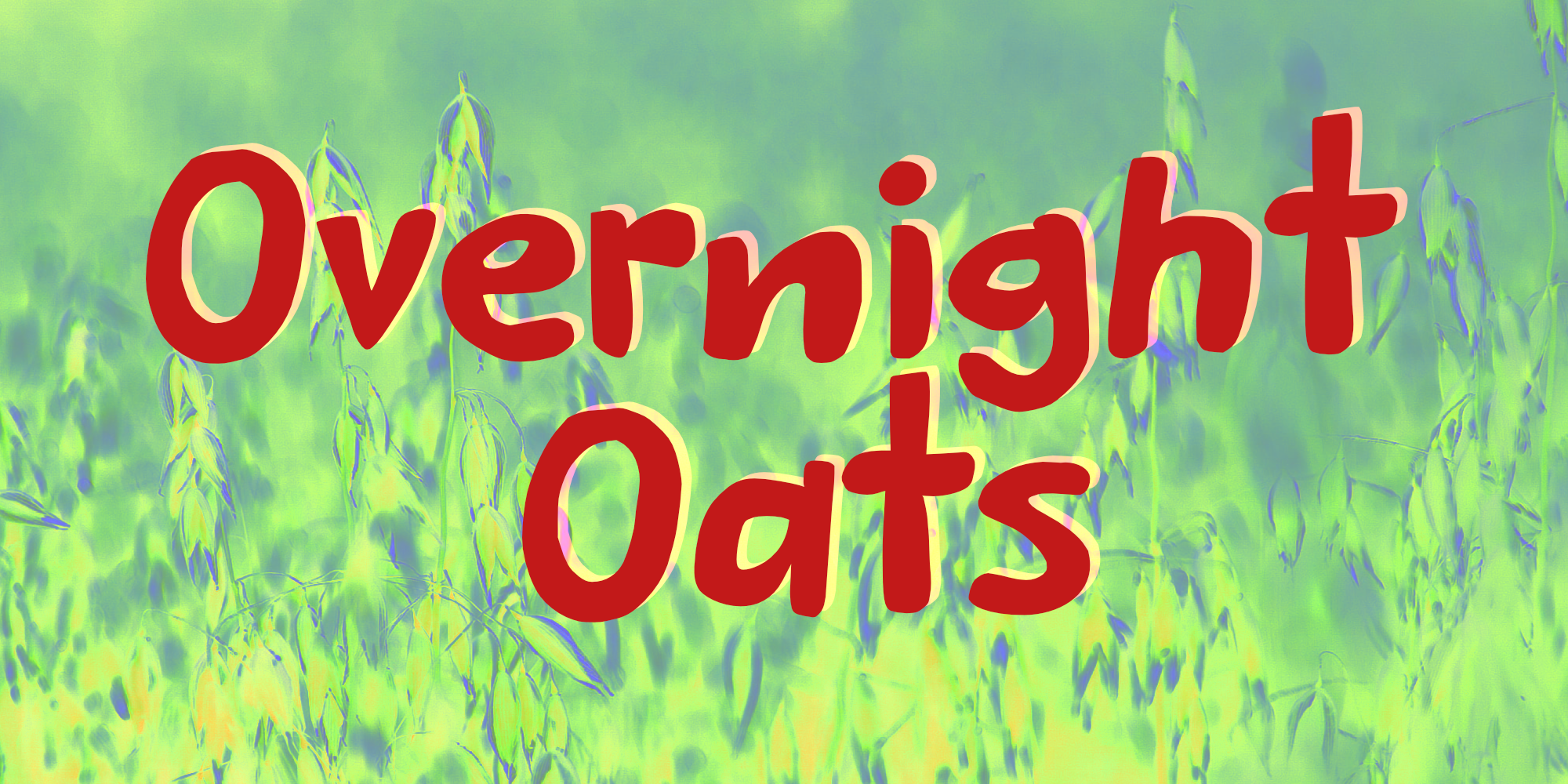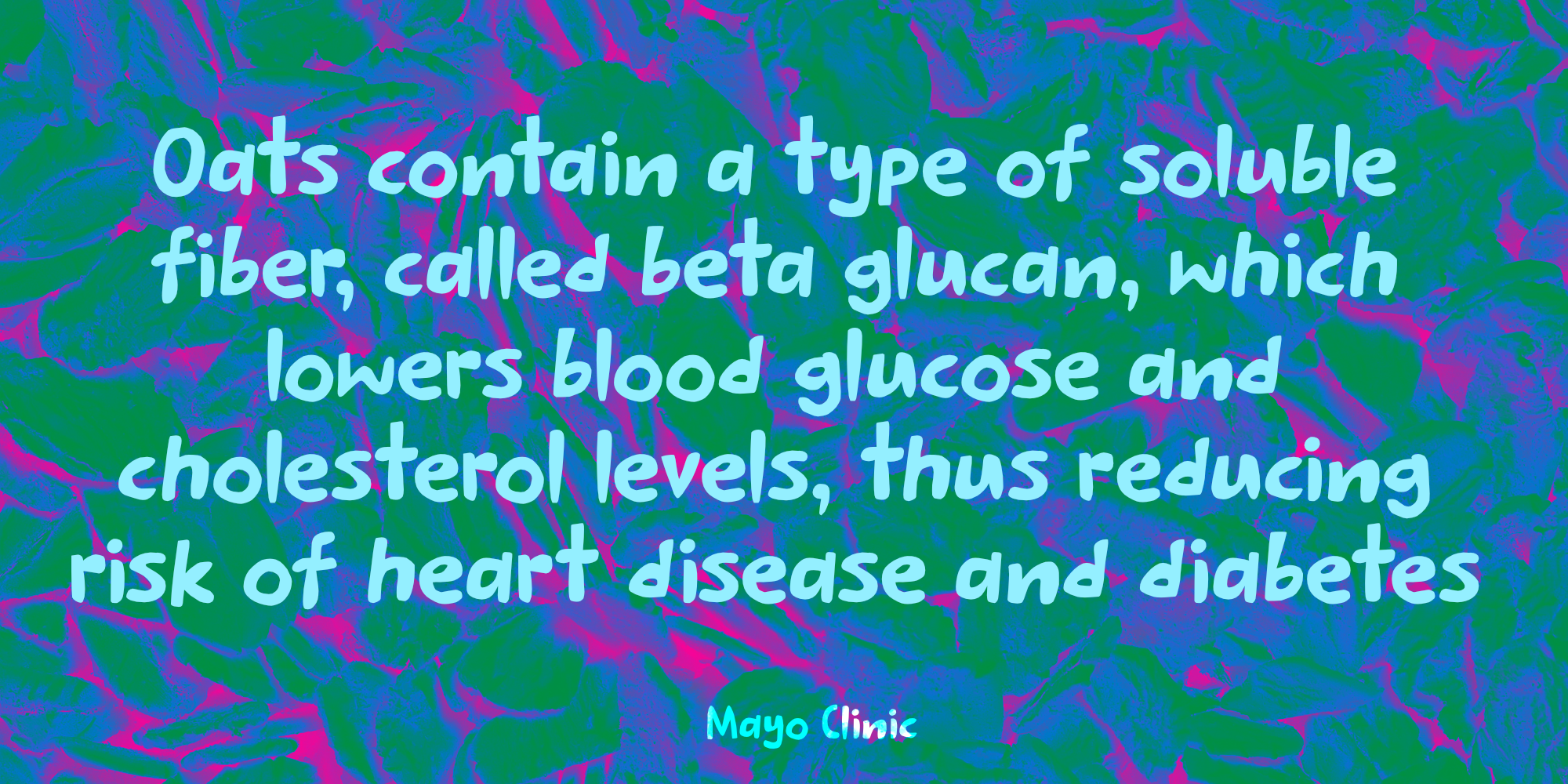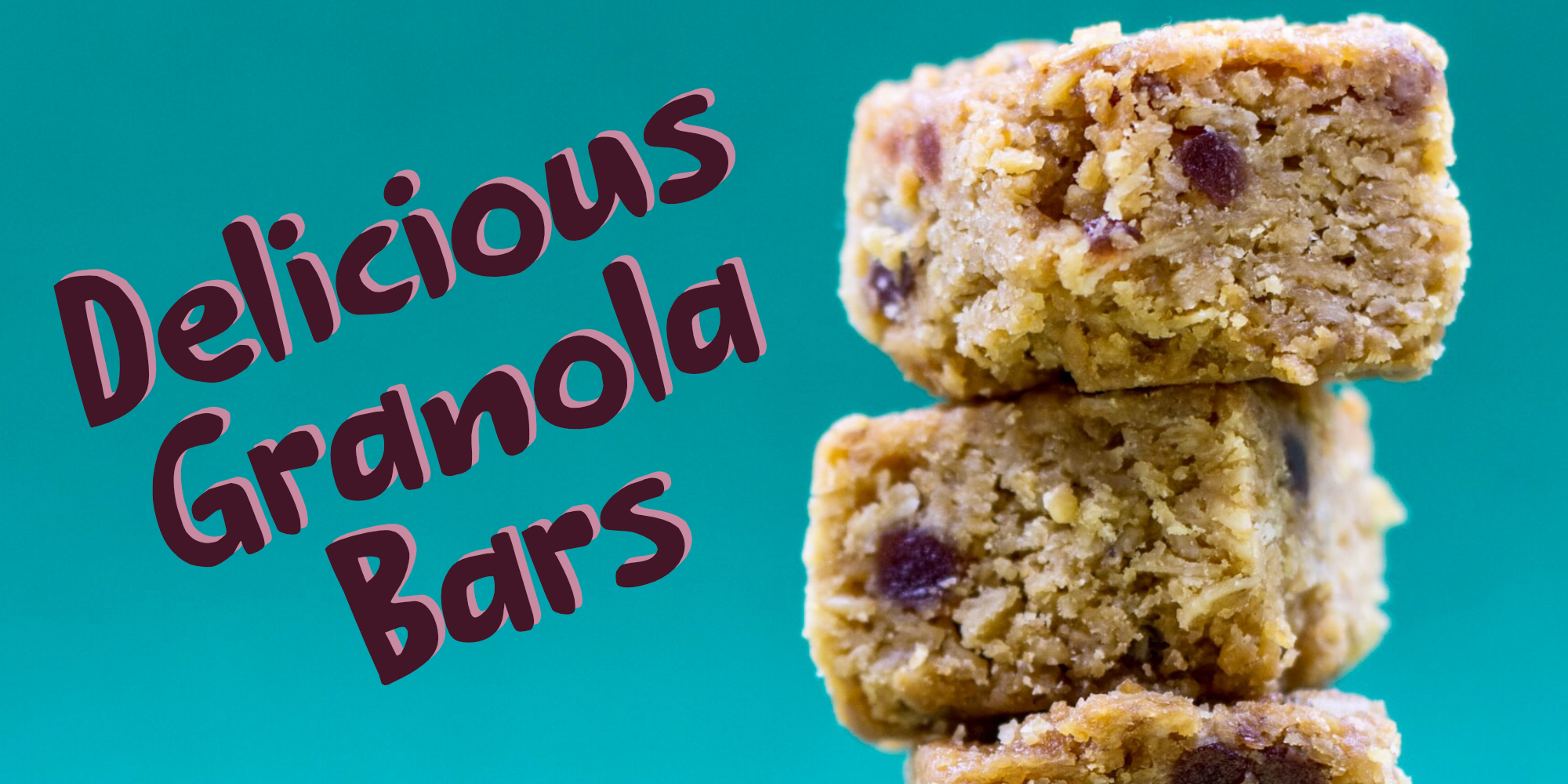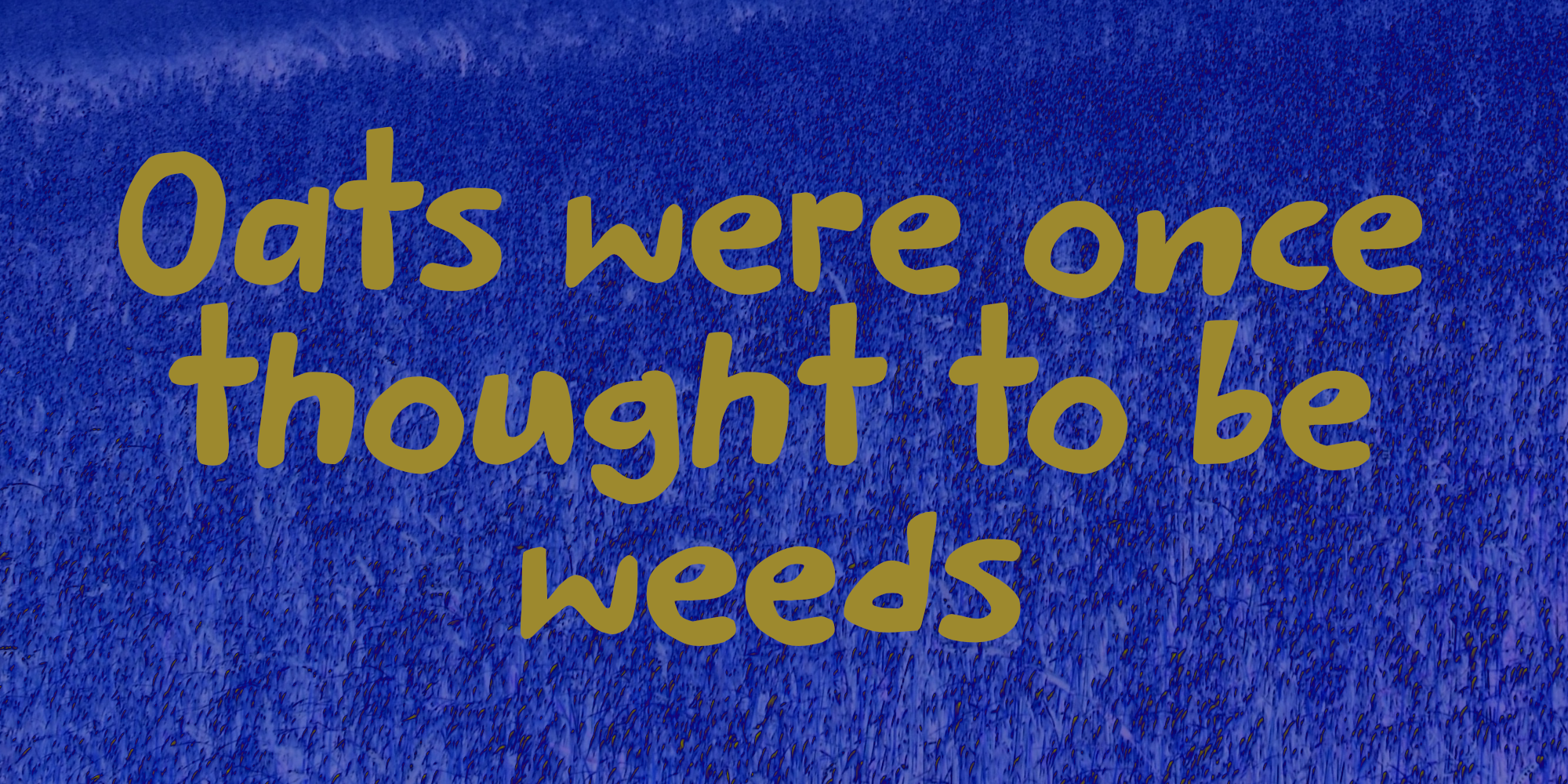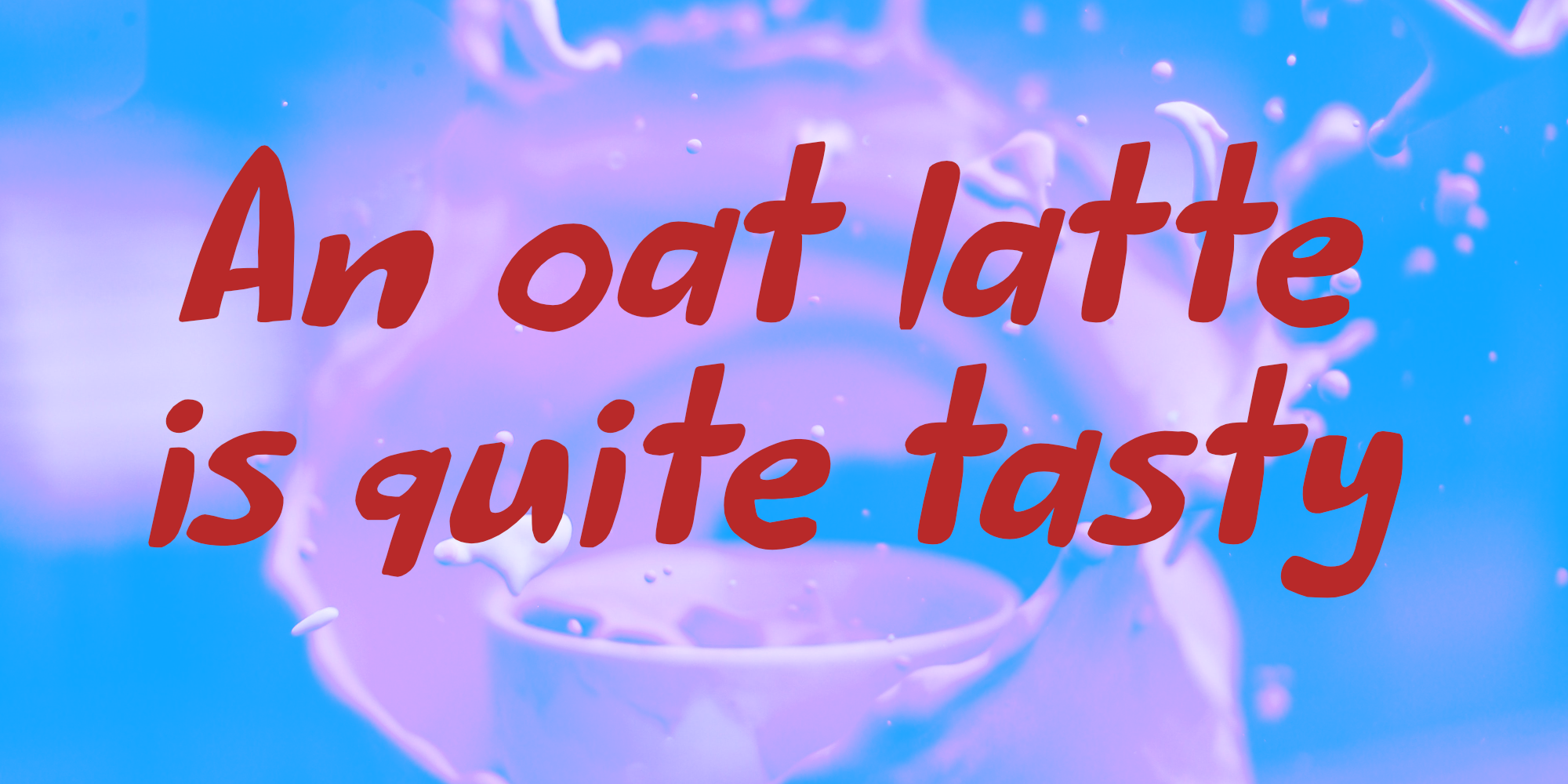
Overnight Oats (2 fonts)
Overnight Oats is a bit of an odd font: it is very higgledy piggledy, yet legible and unique. If you want something out of the ordinary, then this may be your font!